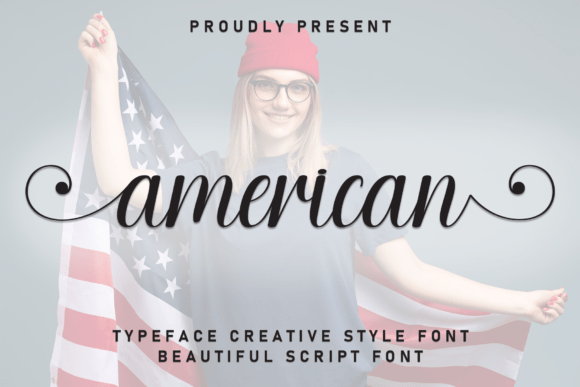
Discover the Charm of American Font: A Handcrafted Display Font
Have you ever been in the middle of a design project, and suddenly, you’re stuck on finding the perfect font? I recall a recent experience where I was working on a wedding invitation project, and my client requested a font that exuded warmth, friendliness, and playfulness. After scouring through numerous font libraries, I stumbled upon American Font, and it instantly captured my heart. In this article, I’ll share my journey with this uniquely handcrafted display font, its features, and how you can make the most of it in your design endeavors.
A Personal Review: What I Love About American Font
American Font has been a delightful addition to my font collection, and here’s what I love about it:
- ✨ Gentle warmth and friendliness: This font breathes life into any design, making it perfect for crafting captivating wedding invitations, sentimental cards, or infusing a joyful aura into any project.
- ✅ Playful and seductive essence: American Font has a unique charm that adds a touch of whimsy to your designs, making them stand out from the crowd.
- 🌈 Magnetically simple yet creatively compelling: The font’s simplicity is its strength, allowing you to experiment with various design combinations without overwhelming your audience.
While American Font has stolen my heart, it’s essential to acknowledge a few minor quirks:
- 🤔 Limited use in formal designs: Due to its playful nature, American Font might not be the best fit for formal or corporate designs that require a more professional tone.
- ⚠️ Glyph compatibility: Some glyphs might not work seamlessly with specific software or platforms, so it’s crucial to test the font before finalizing your design.
American Font was designed with the intention of creating a unique, handcrafted display font that exudes warmth and friendliness. The designer aimed to craft a font that would add a touch of playfulness and whimsy to designs, making it perfect for creative projects and personal use. The font’s gentle curves and lines are inspired by traditional American typography, with a modern twist to make it suitable for contemporary designs.
| What is American Font best suited for? | American Font is ideal for creative projects, such as wedding invitations, sentimental cards, and designs that require a playful, yet elegant touch. |
American Font has become a staple in my font collection, and I’m confident it will do the same for you. With its unique blend of simplicity and inventiveness, this handcrafted display font is sure to cast a spell of warmth and joy on your creations. So, go ahead and explore the magnetically simple yet creatively compelling universe that American Font has to offer!